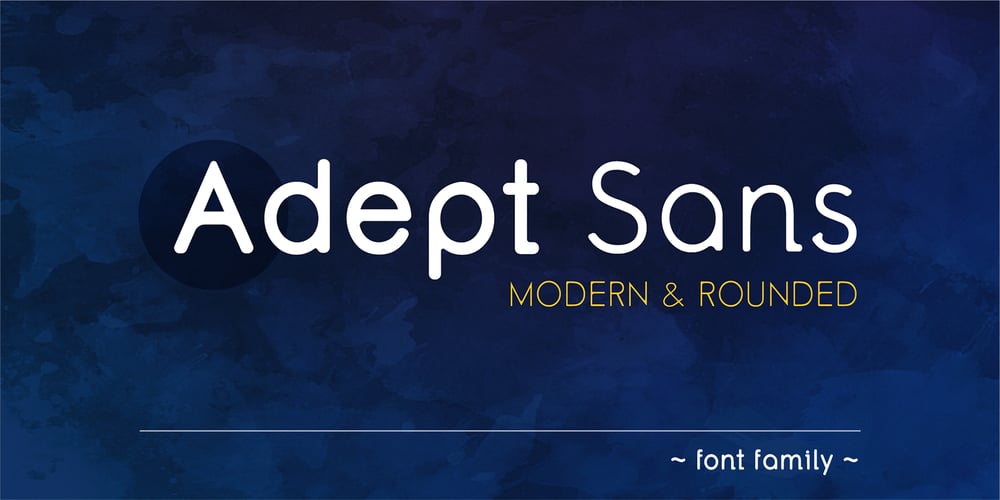
Adept Sans Font Family was designed by Celi Lumi Kimura Sato, Celi Lumi Kimura Sato and published by Lumiks Design. Adept Sans contains 6 styles and family package options. Adept Sans is a rounded, modern and clean font that make it suited for small text to high-impact headlines. The family contains six fonts, 3 weights and its matching italics.